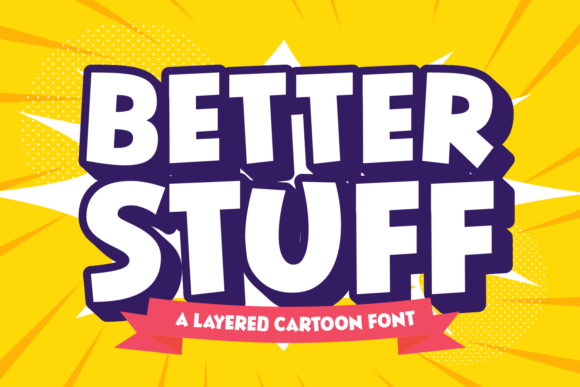
Better Stuff Font: The Ultimate Choice for Fun and Playful Designs
Are you looking for a font that can add a punch of personality to your creative projects? Look no further than the Better Stuff font. This lively, layered cartoon font is bursting with fun and energy, making it perfect for comic-style designs, children’s books, playful logos, and any project that needs a dash of excitement.
What Makes Better Stuff Font So Special?
Better Stuff is a bold, playful font that features thick strokes and confident curves. Its unique design makes it perfect for creating eye-catching headlines, titles, and logos that demand attention. The font’s layered design allows you to create stunning effects with shadows, outlines, and highlights, adding depth and dynamic appeal to your designs.
Key Features of Better Stuff Font
- Layered design: Create eye-catching effects with shadows, outlines, and highlights
- Bold and playful characters: Perfect for comic-style designs, children’s books, and playful logos
- Thick strokes and confident curves: Make your message pop loud and clear
- Fun and energetic vibe: Adds a punch of personality to your designs
The Benefits of Using Better Stuff Font
Using Better Stuff font in your designs can have numerous benefits. For one, it can help you create a unique and playful visual identity that sets you apart from the competition. The font’s bold and energetic vibe can also help you grab the attention of your audience and convey your message more effectively.
Design Tips for Using Better Stuff Font
- Use it for headlines and titles: Better Stuff font is perfect for creating eye-catching headlines and titles
- Experiment with layering: Try out different layering effects to add depth and dynamic appeal to your designs
- Pair it with other fonts: Combine Better Stuff font with other fonts to create a unique and visually appealing typography
- Use it for branding and logos: Better Stuff font is perfect for creating playful and memorable logos and brand identities
Better Stuff Font in Action
Better Stuff font can be used in a wide range of design projects, from comic-style illustrations to children’s books and playful logos. Here are a few examples of how you can use Better Stuff font in your designs:
Examples of Better Stuff Font in Action
- Comic-style illustrations: Use Better Stuff font to add a playful and energetic touch to your comic-style illustrations
- Children’s books: Better Stuff font is perfect for creating fun and engaging children’s books
- Playful logos: Use Better Stuff font to create memorable and playful logos for your brand or business
- Advertising and marketing materials: Better Stuff font can help you create eye-catching advertising and marketing materials that grab attention
Why Choose Better Stuff Font?
So why choose Better Stuff font for your design projects? Here are a few reasons:
Why Choose Better Stuff Font?
- Unique and playful design: Better Stuff font features a unique and playful design that sets it apart from other fonts
- High-quality and versatile: Better Stuff font is high-quality and versatile, making it perfect for a wide range of design projects
In conclusion, Better Stuff font is a lively, layered cartoon font that bursts with fun and energy. Its bold, playful characters are perfect for comic-style designs, children’s books, playful logos, and any creative project needing a punch of personality. With its thick strokes and confident curves, Better Stuff font is made to make your message pop loud and clear. So why not give it a try and see how it can elevate your designs?